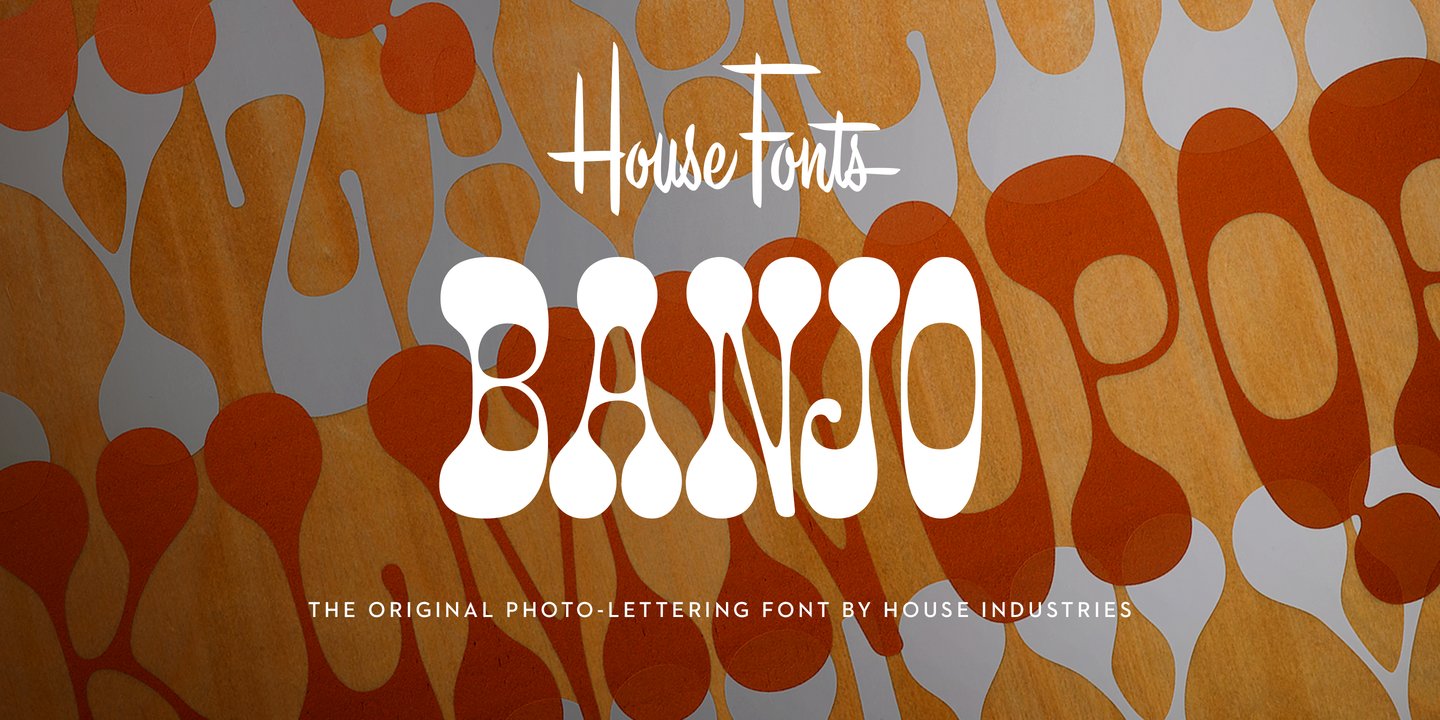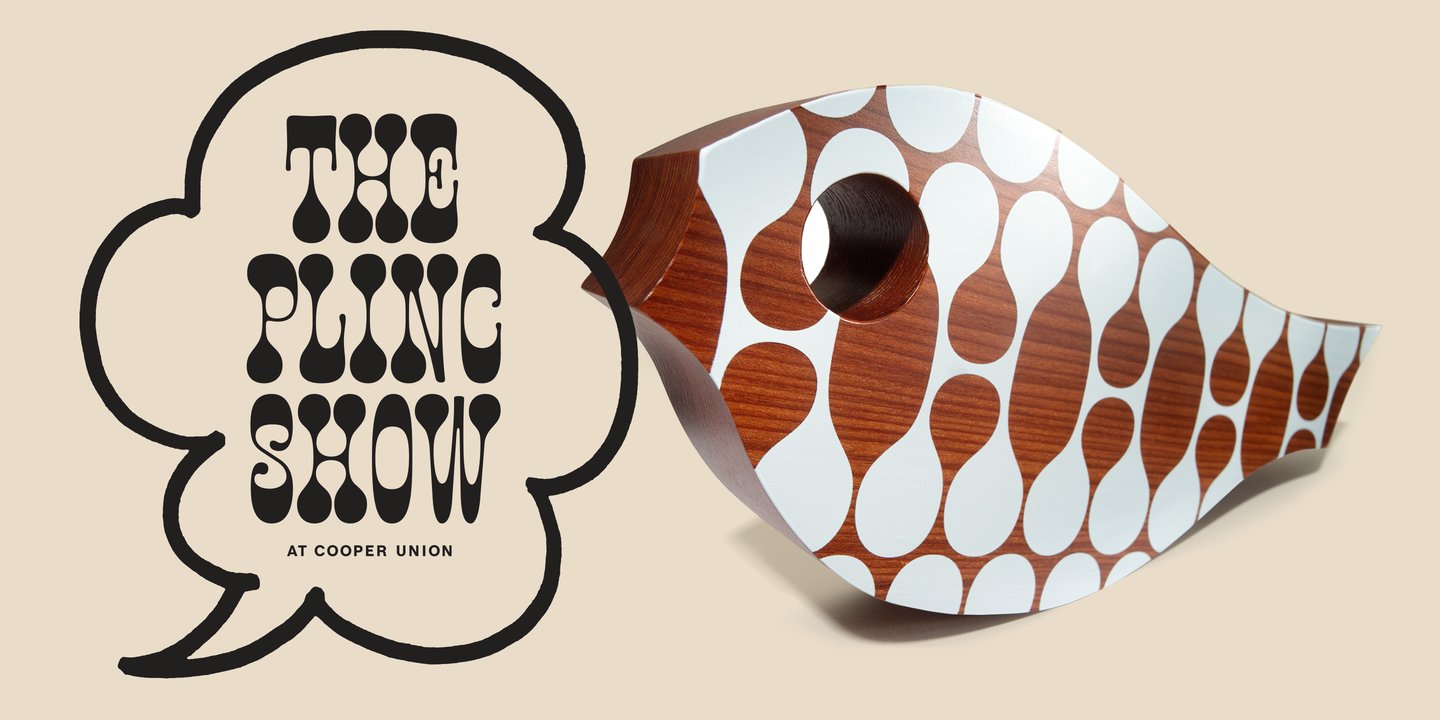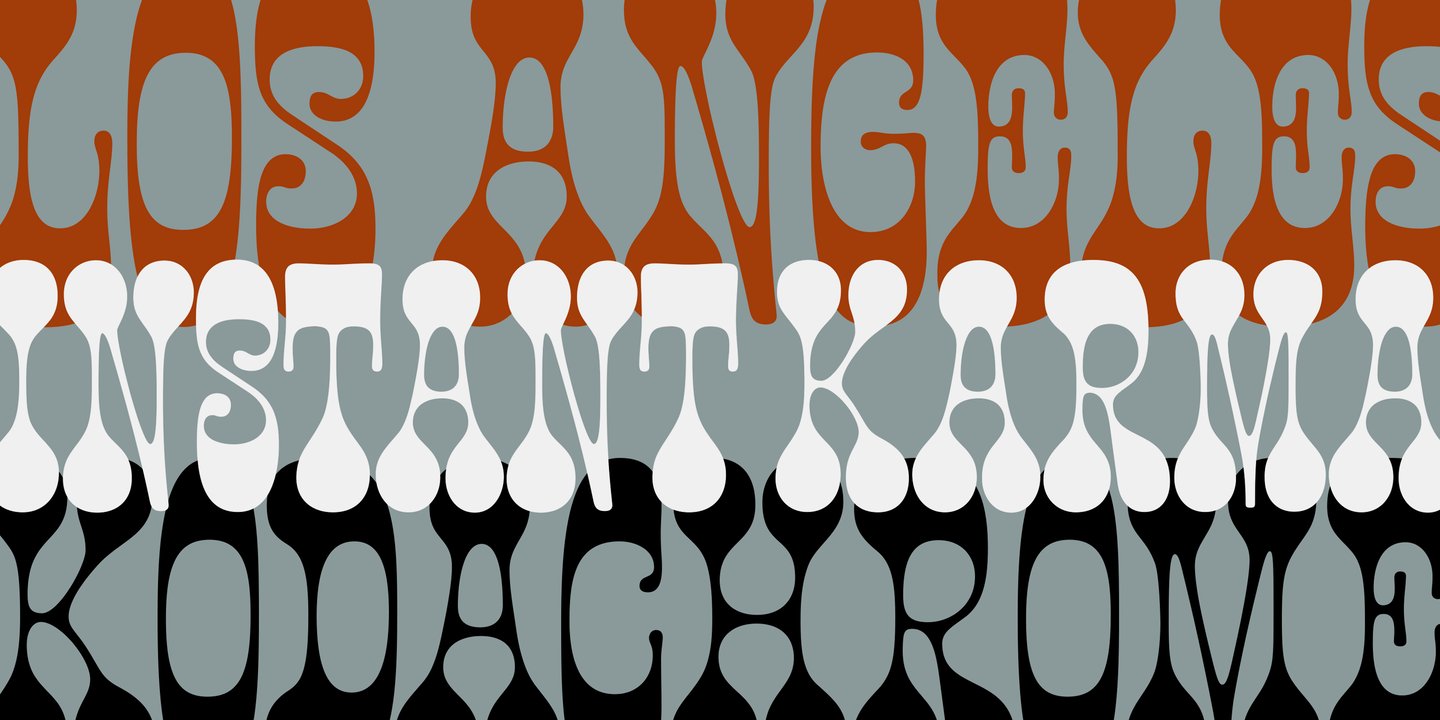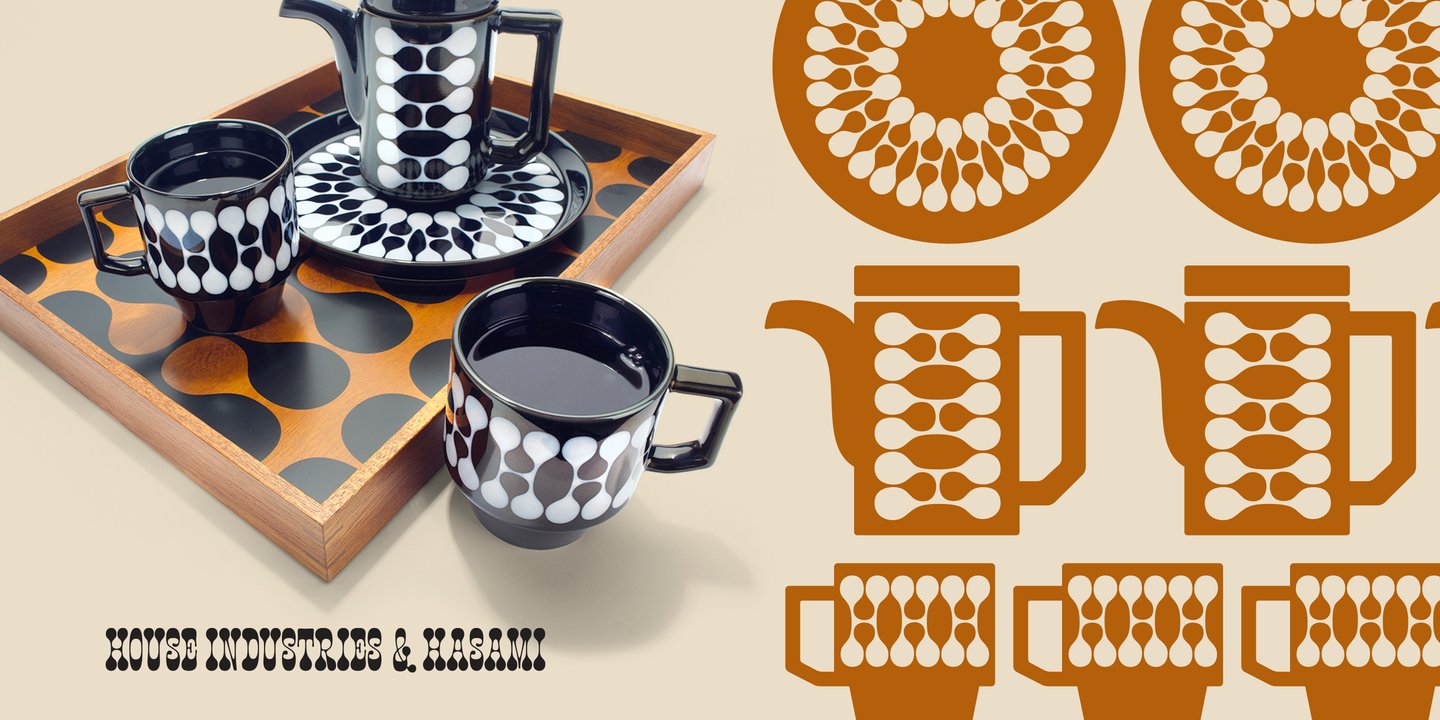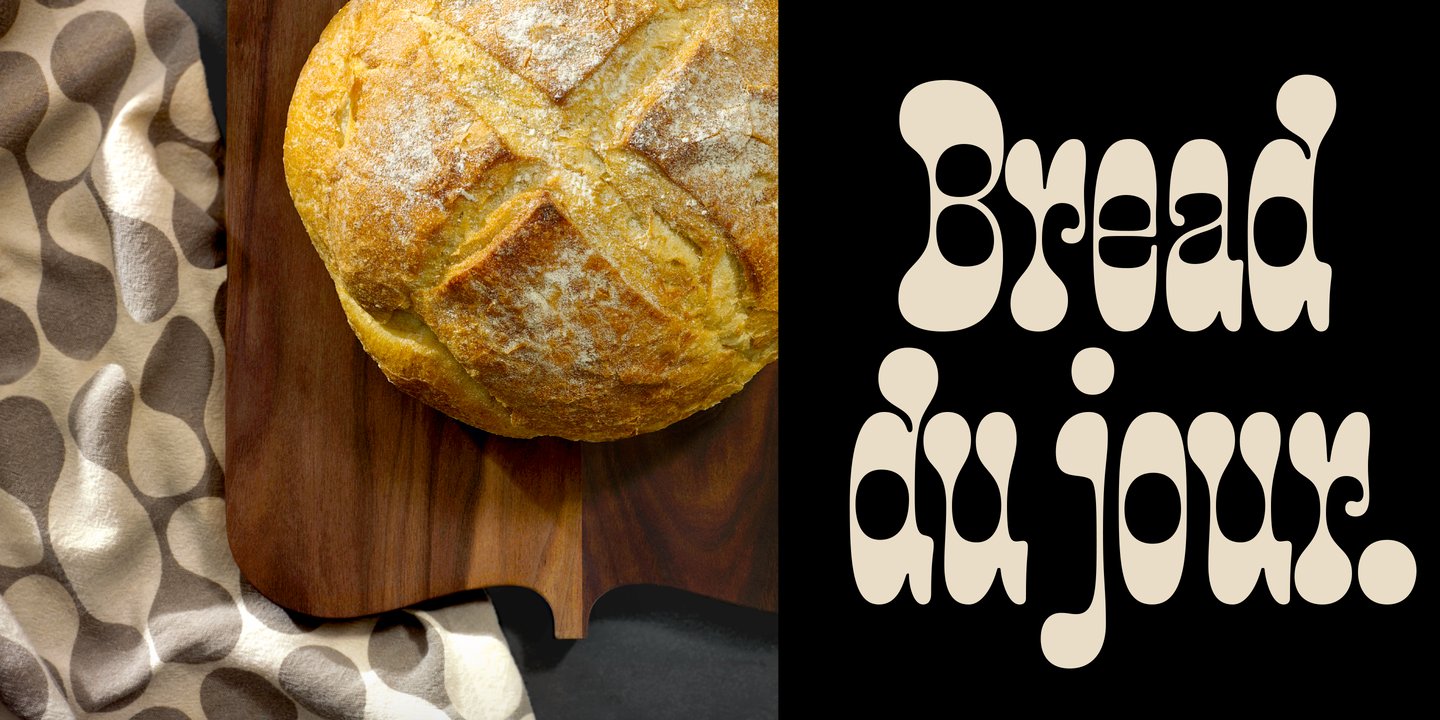
About the Plinc Banjo Font
About Plinc Banjo Font Family When it comes to poster design, the line between wild west and psychedelic can be surprisingly fine. Dave West combined both typographic genres to create his refreshing Banjo. Developed in the late 1960s for Photo-Lettering, Inc., this curvaceous high-contrast sort-of serif might have been born on the nineteenth-century frontier, but it was raised in the counterculture of the mid-twentieth century.